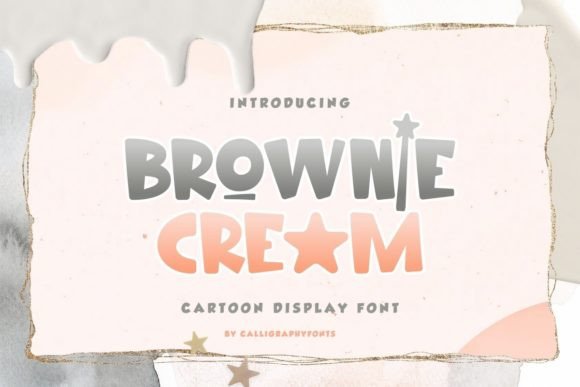
**Brownie Cream Font: The Sweetest Display Font for Joyful Creations**
Introducing Brownie Cream Font, the enchanting uppercase display font that will bring a touch of sweetness and fun to your creative projects. Inspired by the whimsical world of children's typography and the delectable richness of melted brownie cream, this font embodies a unique charm that will capture hearts and ignite imaginations.
**A Font for Every Occasion: The Sweetness of Versatility**
With its irresistible allure, Brownie Cream Font lends itself to a myriad of applications, from the playful to the professional. Whether you're creating birthday invitations, designing eye-catching brand prints, or adding a touch of whimsy to your café or cake shop decor, this font has you covered.
**A Symphony of Creativity: The Perfect Font for Music Video Titles**
Unleash the rhythmic power of your words with Brownie Cream Font. Its playful curves and charming personality make it the ideal choice for creating captivating titles for your music videos. Let the font dance across the screen, evoking the melody and emotions of your music.
**A Treat for the Eyes: The Joy of Cookie-Inspired Creations**
Bake a batch of delightful cookies with Brownie Cream Font. Its sugary sweetness perfectly complements cookie-themed projects, bringing a smile to the faces of all who see it. Use it to create packaging that enchants, and design labels that make your cookies irresistible.
**A Culinary Masterpiece: The Ideal Font for Food and Cooking**
Let Brownie Cream Font add a dash of flavor to your culinary creations. Its charming style is perfect for food blogs, cooking class materials, and custom mugs that will make every sip of coffee or tea a sweet experience.
**A Font for Celebration: The Perfect Touch for Special Occasions**
Celebrate life's sweetest moments with Brownie Cream Font. Its playful spirit lends itself beautifully to birthday bash invitations, anniversary announcements, and any occasion where joy and cheer are in order.
**A Font for Business: The Professional Sweetness of Success**
Brownie Cream Font isn't just a font for fun; it's also a powerful tool for businesses looking to make a lasting impression. Use it to create signage that attracts customers, design logos that leave a lasting memory, and craft product packaging that will set your products apart.
**A Font for Imagination: The Limitless Possibilities of Creativity**
Let Brownie Cream Font be your inspiration as you embark on a journey of endless creativity. Its whimsical charm will ignite your imagination, helping you create unique and unforgettable designs that will leave a sweet taste in the mouths of all who behold them.